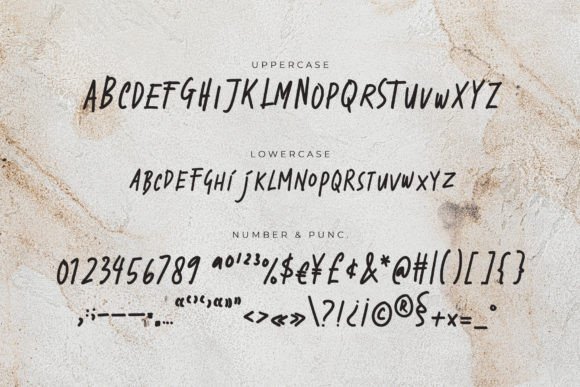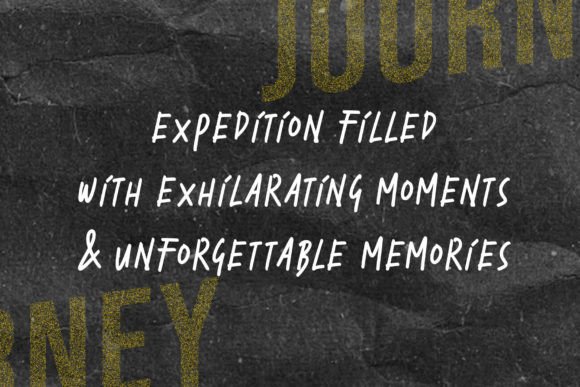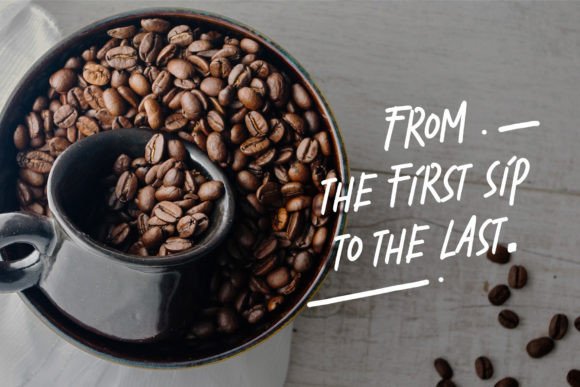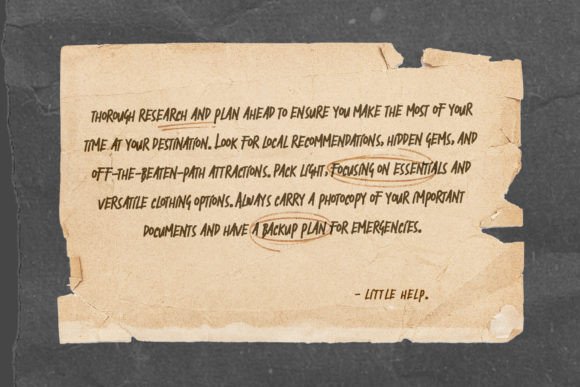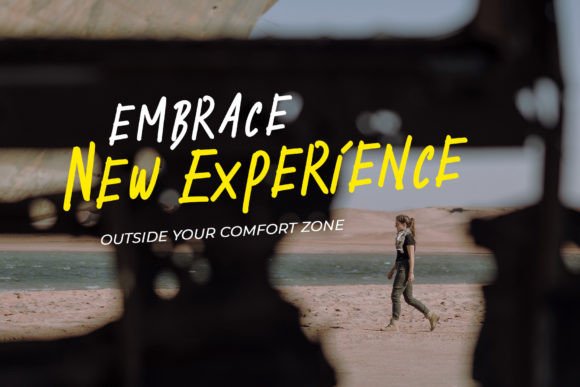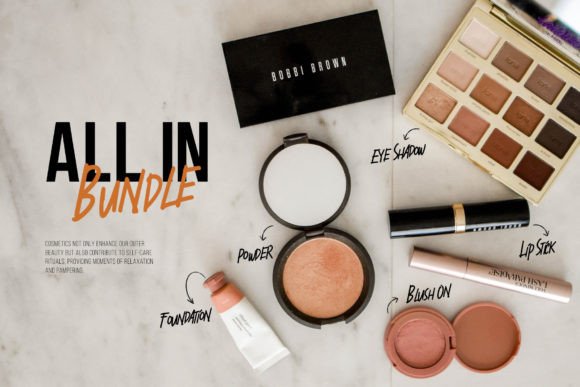
The Adventure Alphabets Font: A Journey Through Design
I still remember the design project that led me to discover the Adventure Alphabets font. I was working on a travel blog, and my client wanted a font that would transport readers to a world of adventure and exploration. I scoured the internet, tried out countless fonts, but none seemed to capture the essence of wanderlust and curiosity that I was looking for. That was until I stumbled upon Adventure Alphabets.
This captivating and adventurous natural handwritten font has been a game-changer for my design projects. With its varied line weights and subtle imperfections, Adventure Alphabets brings a sense of authenticity and ruggedness to any design. In this article, I’ll share my honest review of the font, provide a practical guide on how to use it, and explore similar fonts that you might love.
- ✅ Unique and captivating lettering that adds a touch of wanderlust to any design
- ✅ Varied line weights and subtle imperfections that bring a sense of authenticity and ruggedness
- ✅ Perfect for travel blogs, outdoor-themed projects, and nostalgic storytelling
- ✅ Easy to read and works well for both headings and body text
- ⚠️ Some users might find the font a bit too distressed or rough for certain projects
- ⚠️ Limited availability of stylistic alternates, which might limit design flexibility
The Story Behind Adventure Alphabets
Adventure Alphabets was designed by a team of creatives who wanted to capture the essence of exploration and wanderlust. Inspired by vintage travel posters, handwritten journals, and the great outdoors, they crafted a font that’s perfect for designers who want to add a touch of adventure to their work.
Q: What makes Adventure Alphabets unique?
A: Adventure Alphabets is unique because of its varied line weights, subtle imperfections, and captivating lettering. These features bring a sense of authenticity and ruggedness to any design.
Q: Is Adventure Alphabets suitable for body text?
A: Yes, Adventure Alphabets is suitable for body text, but it works best for headings and titles. You can use it for longer blocks of text, but it might be a bit more challenging to read.